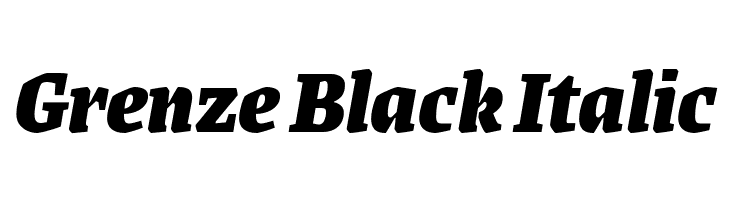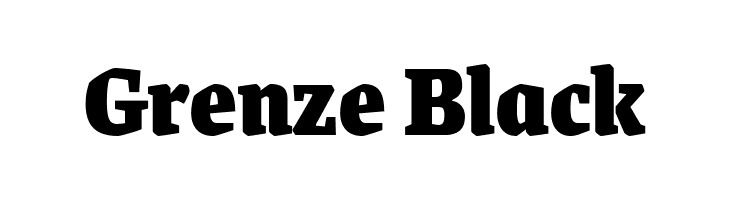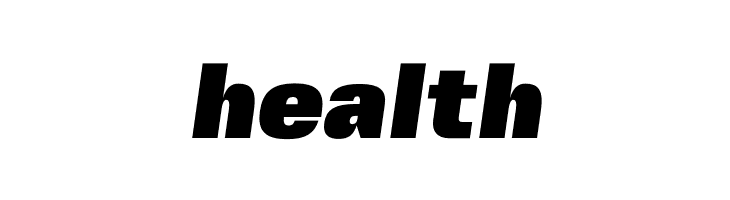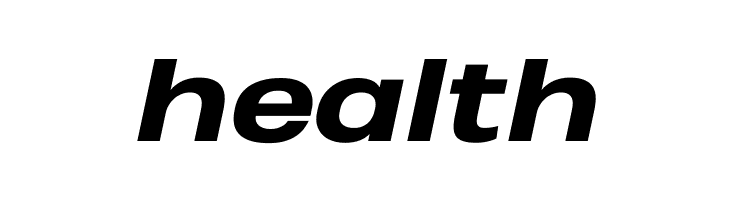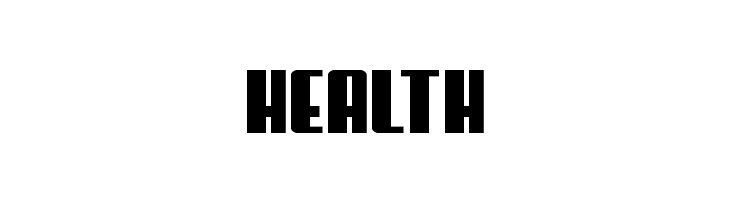
A bold, oblique sans-serif font with a modern and impactful style.
A bold, high-contrast serif font with strong geometric influences.
A bold, italic serif font with high contrast and tight spacing, ideal for striking headlines.
A bold, serif font with a classic and commanding style.
A bold, modern font with strong, geometric characters and minimal contrast.
A bold, wide, and italicized font perfect for impactful headlines.
A bold, italic, and compressed font with a modern and dynamic style.
A bold, geometric font with strong, uniform strokes and a modern aesthetic.
A bold, condensed sans-serif typeface with a modern and clean design.